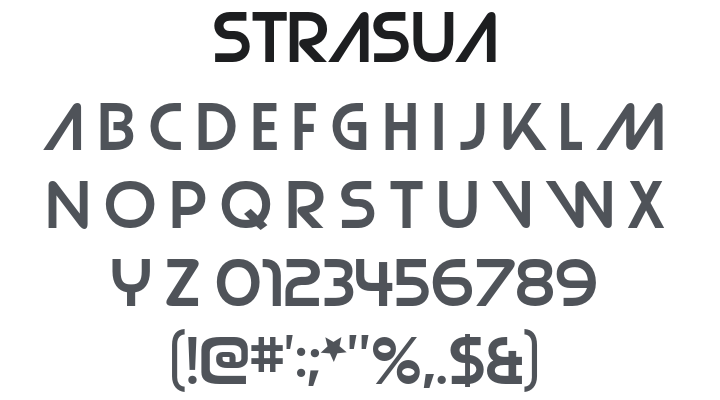
Strasua Font
About Strasua
Strasua is a sober, minimalist geometric headline typeface with a laid-back 1970s industrial design influence — clean, understated letterforms with a distinctive barless capital A that give it a quietly unconventional character. Its calm, measured geometry projects tactical serenity rather than aggressive energy. Perfect for tech branding, minimal editorial headlines, corporate identity, sci-fi interfaces, and any design needing cool, understated modernist confidence.